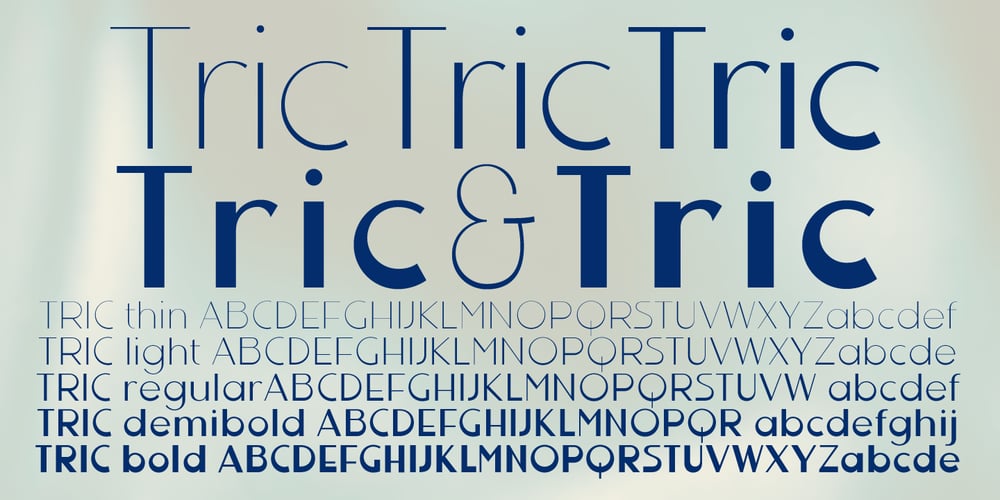
Tric Font Family was designed by Gert Wiescher and published by Wiescher Design. Tric contains 5 styles and family package options. Tric was inspired by the shop-sign of Alex Singer. He builds the worlds most beautiful bicycles in Paris and has a very special sign. It is absolutely turn of the century, 1920s the Paris of Liza Minellis Cabaret. Enjoy this outstanding font now.